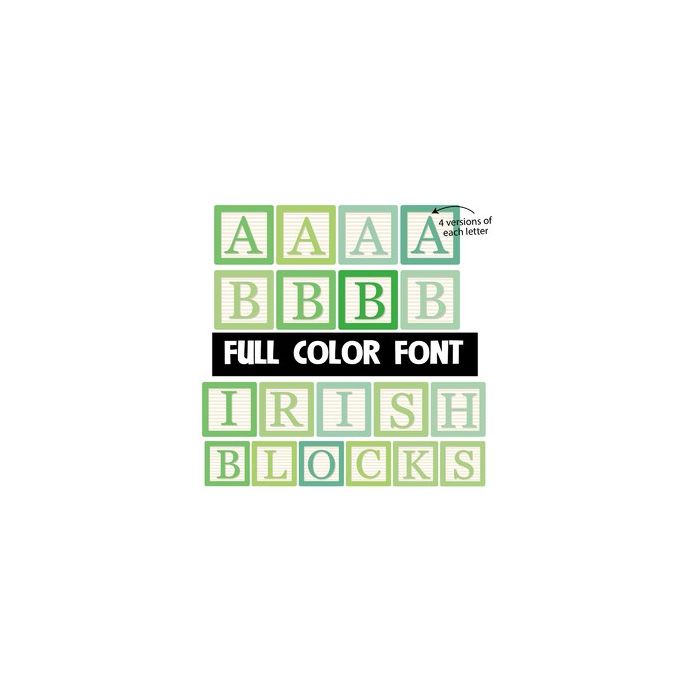
This full-color font features an array of greens on children's blocks. There is a second upper and lower alt case you can access through your system's character map. This font works best for titles, displays, posters and more. Please note color fonts will show as black in non compatible programs. This font type is compatible with Silhouette Studio.